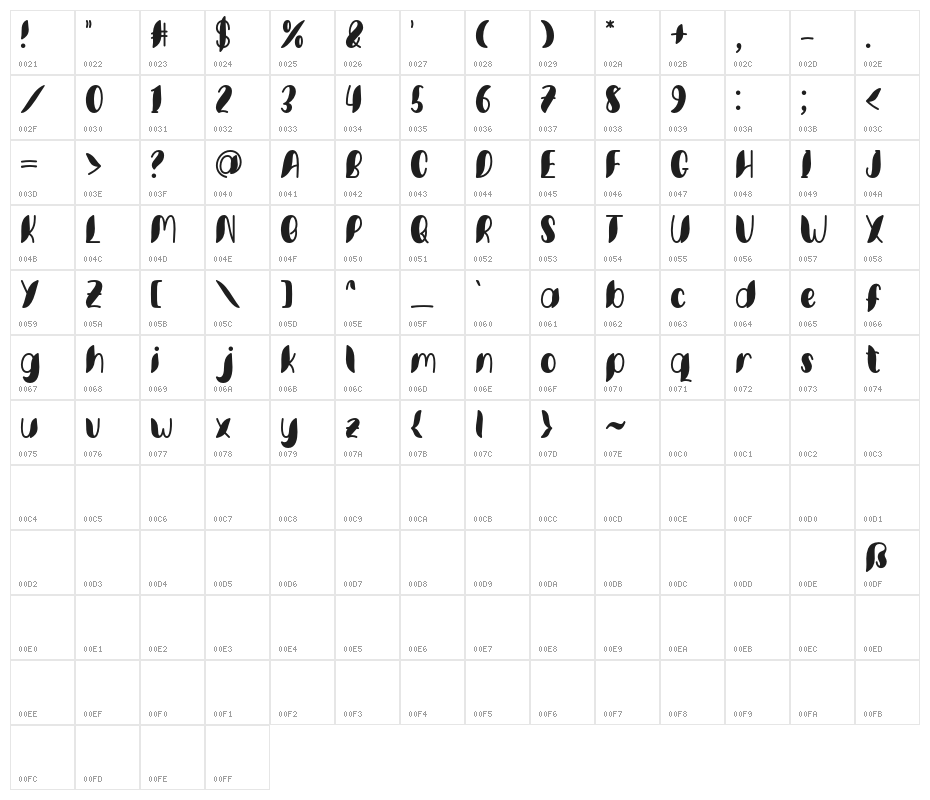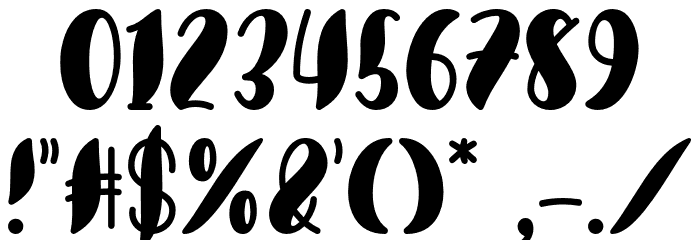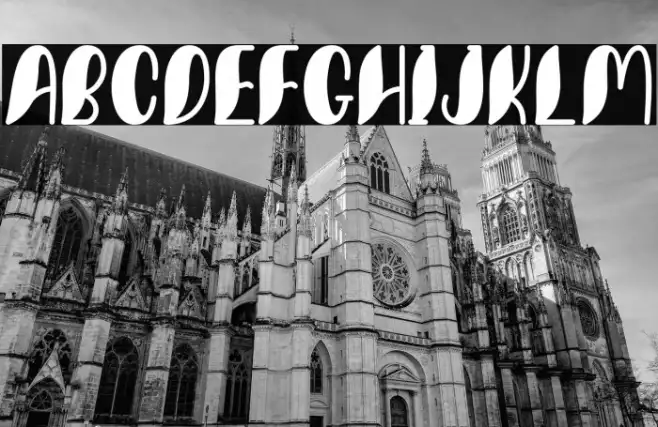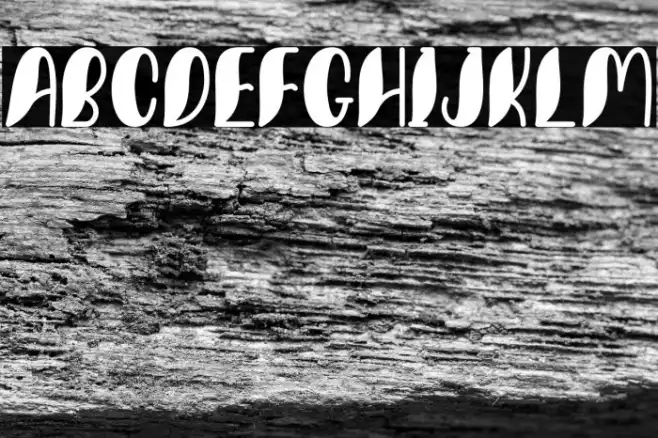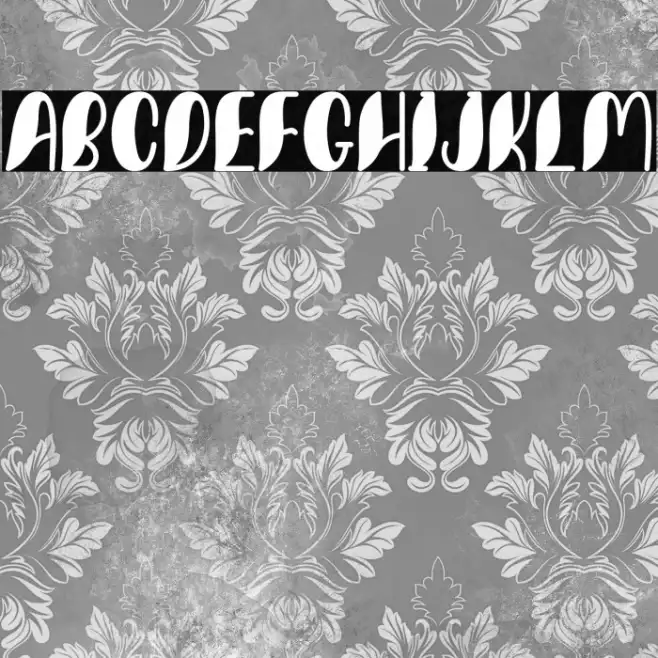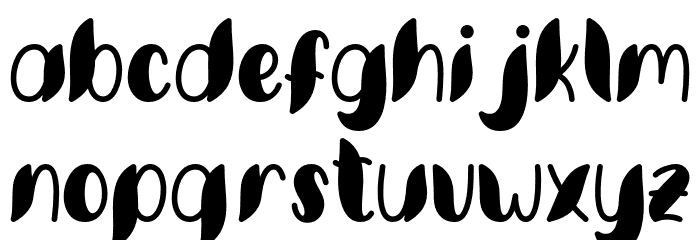
Minkem Font
Minkem Description
This font features a playful and bold design with a handwritten style, characterized by its thick, rounded strokes and smooth curves. The uppercase letters are slightly taller than the lowercase, adding a dynamic feel to the text. The numbers and special characters maintain the same whimsical style, ensuring consistency across all characters. The font's unique flair makes it stand out, with each letter having a distinct personality while still maintaining a cohesive look. This font is perfect for projects that require a touch of creativity and fun, offering a lively and engaging appearance.
MINKEM UPPERCASE
MINKEM LOWERCASE
MINKEM OTHER CHARS